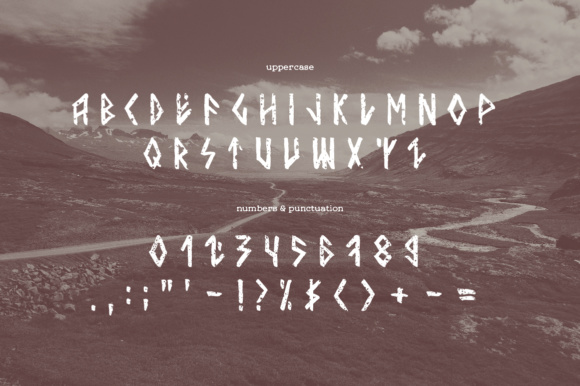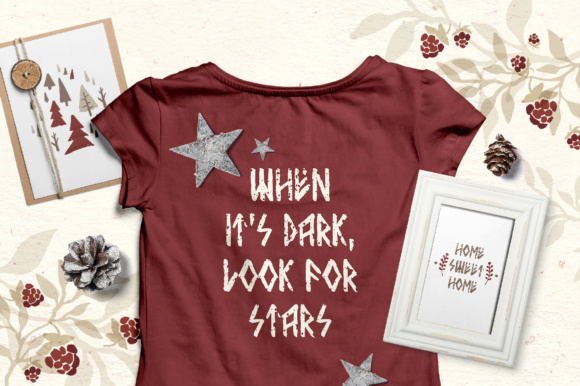
Nordica Font
This beautiful runic style typeface will help you bring the Soul of the North into your design projects.It’s the ideal font for giving a strong Nordic touch to your texts. Great for typography posters, apparel design, branding and logo, greeting cards and invitations.